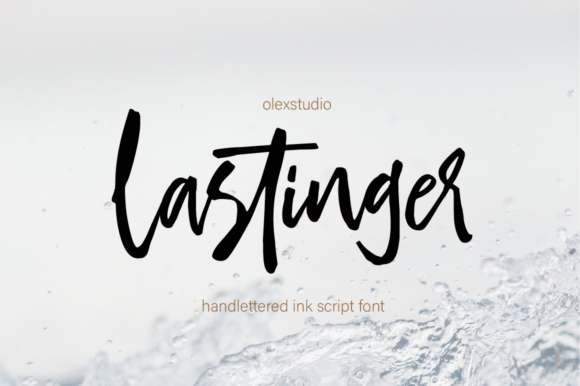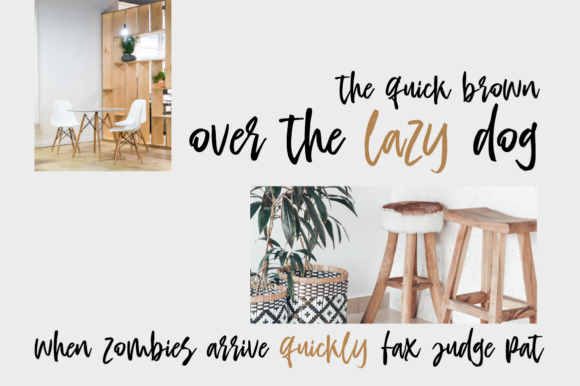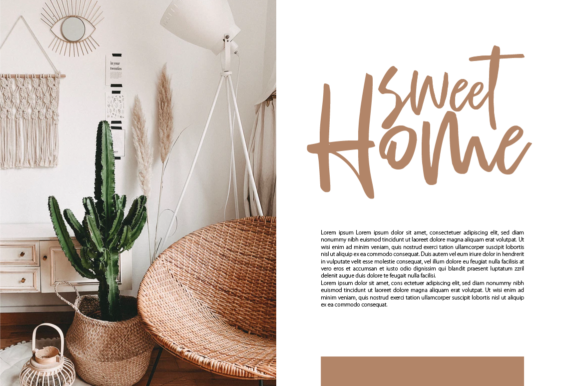
Lastinger Font
About Lastinger Font
Lastinger is a modern handwritten font, carefully handcrafted to become a true favorite. Its casual charm makes it appear wonderfully down-to-earth, readable and, ultimately, incredibly versatile. This font will look outstanding in any context, whether it’s being used on busy backgrounds or as a standalone headline!